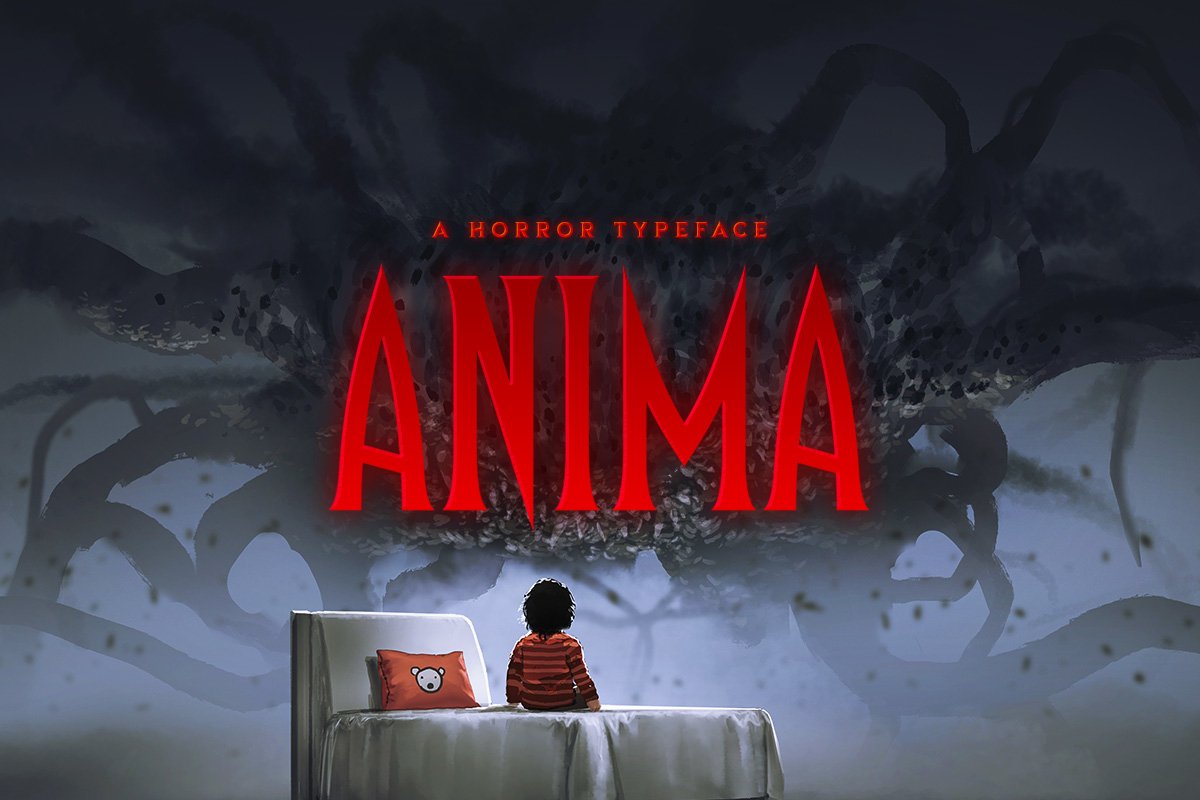
Anima Typeface
Anima Regular
Anima Outline
Anima Rough
Anima is a tall and sharp font family with three distinct styles. It includes uppercase multilingual letters, alternate letters, numbers and punctuation.
Anima Typeface